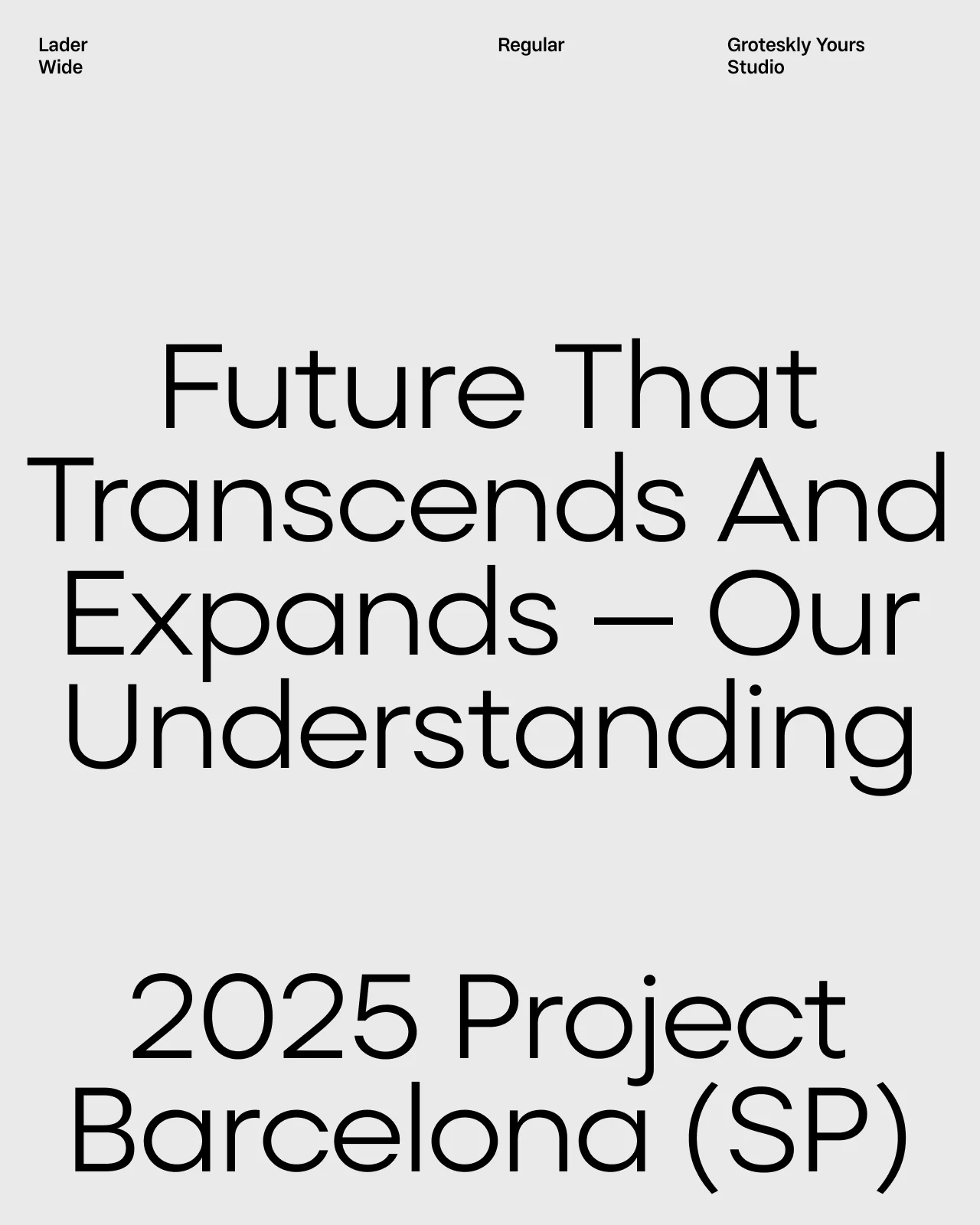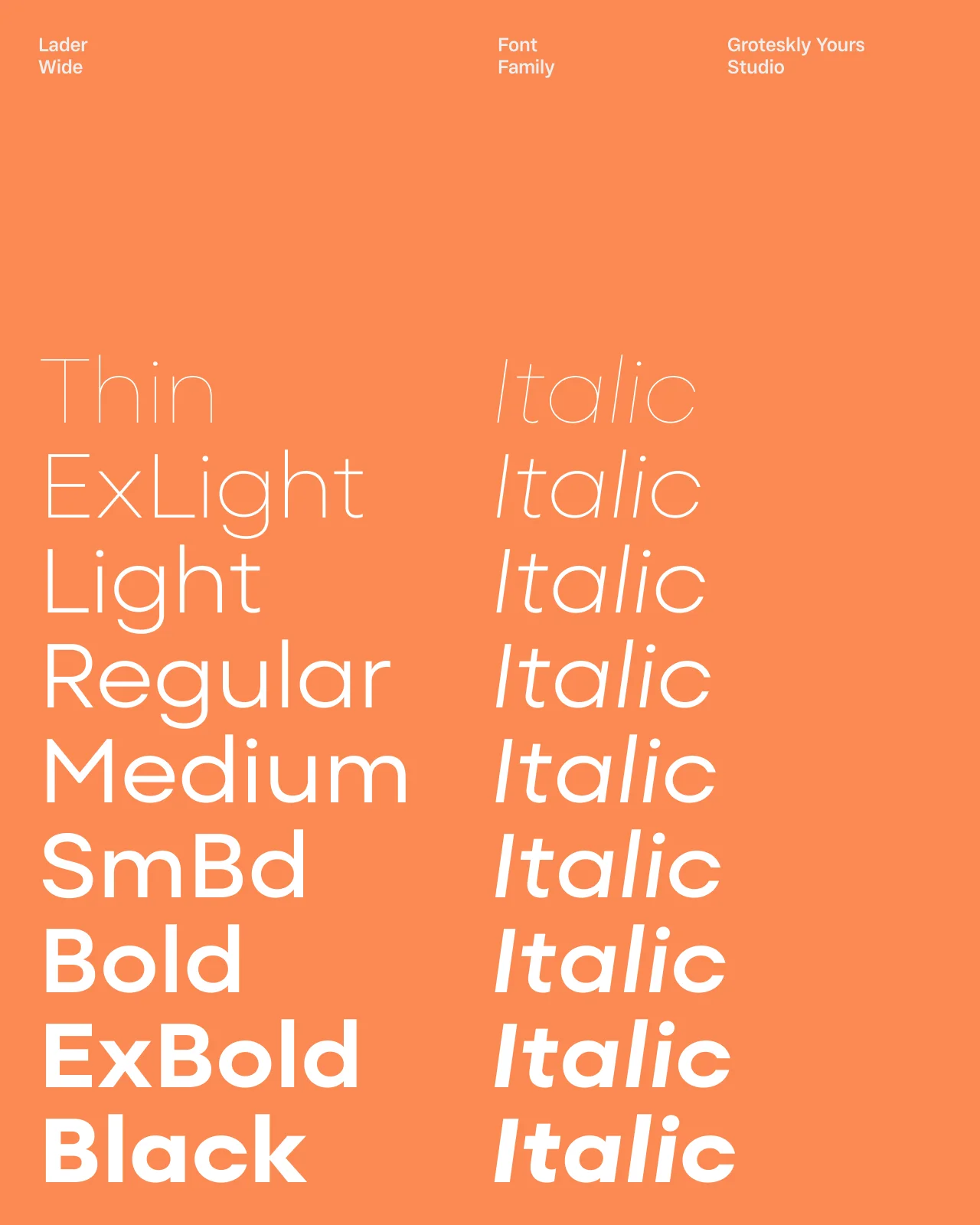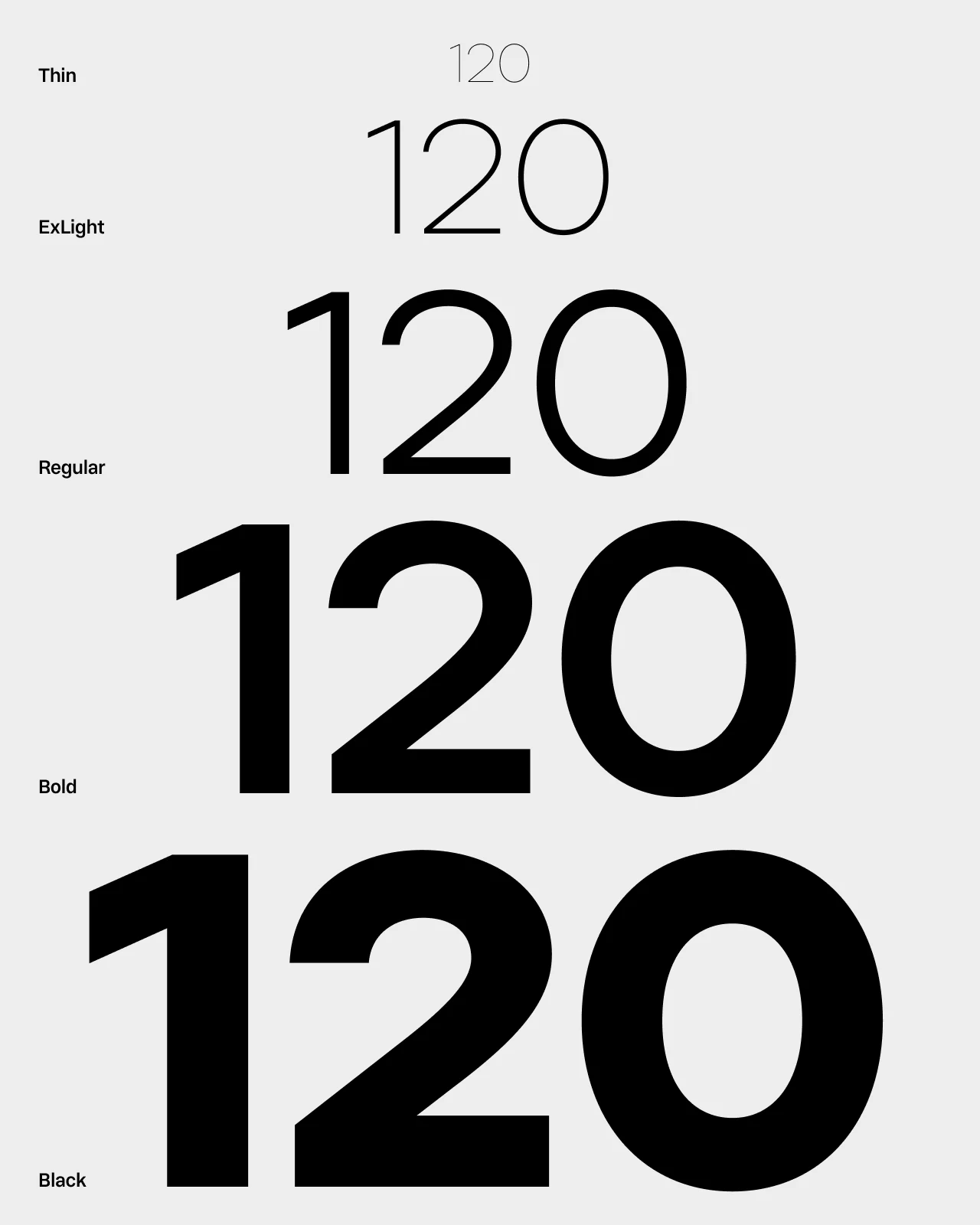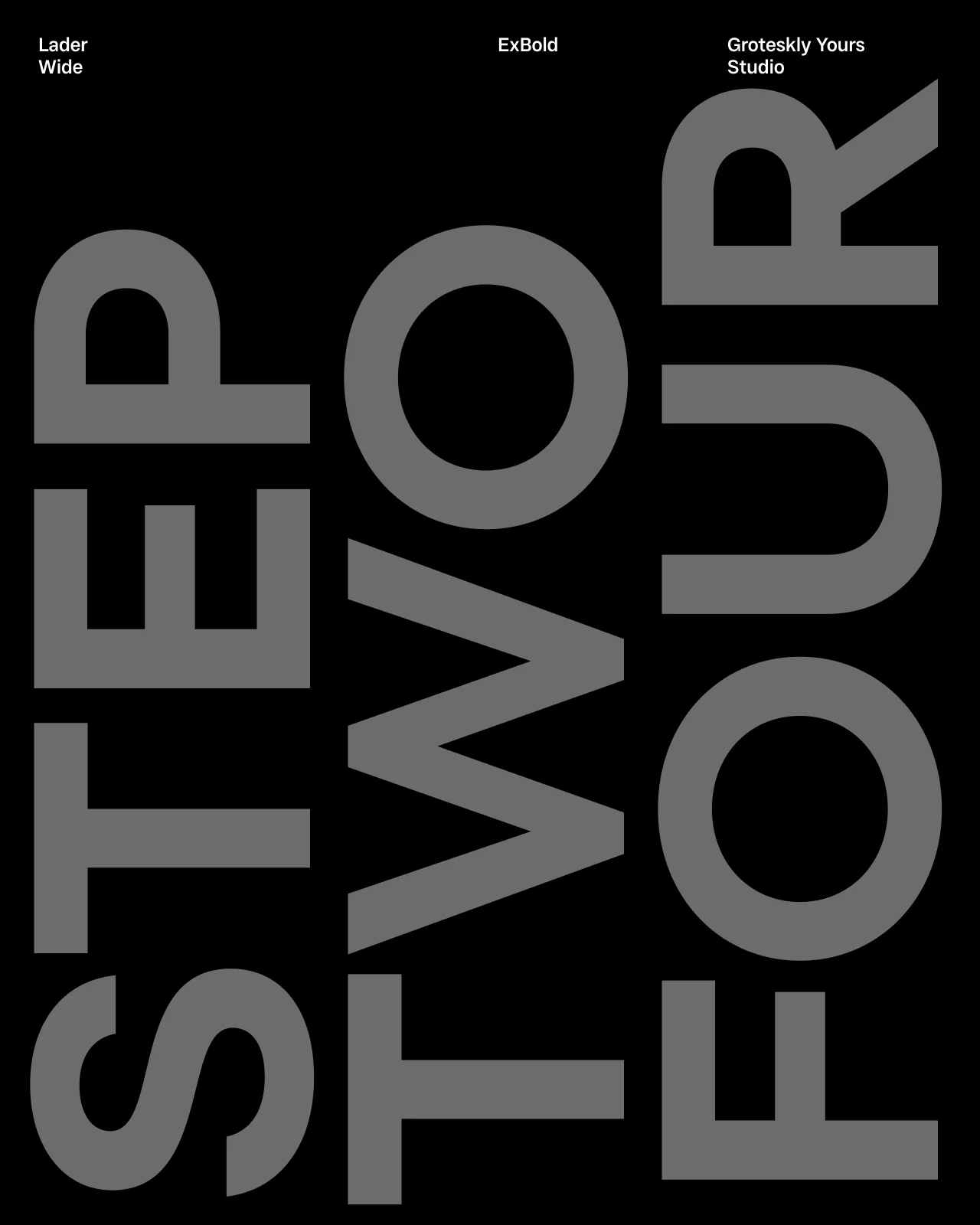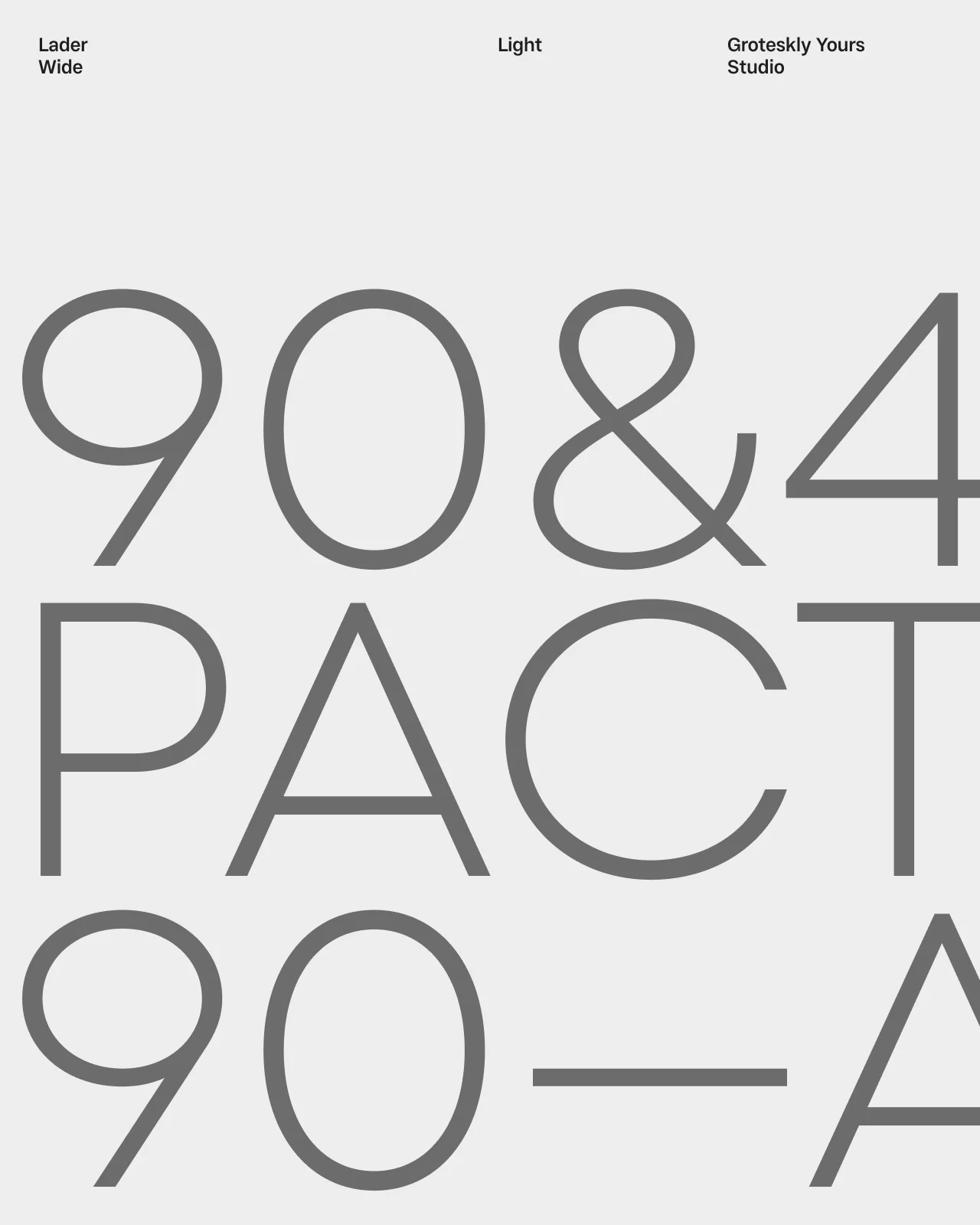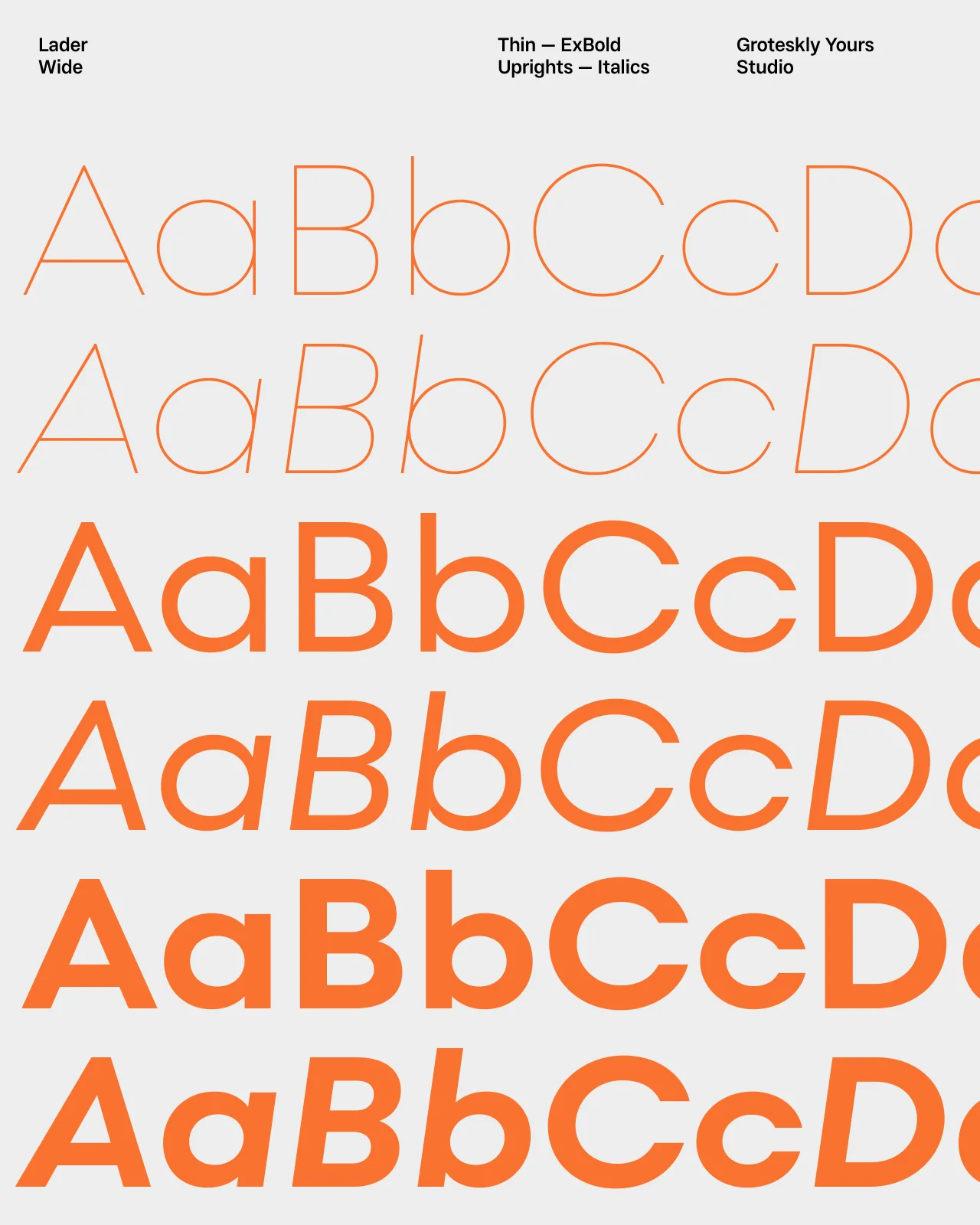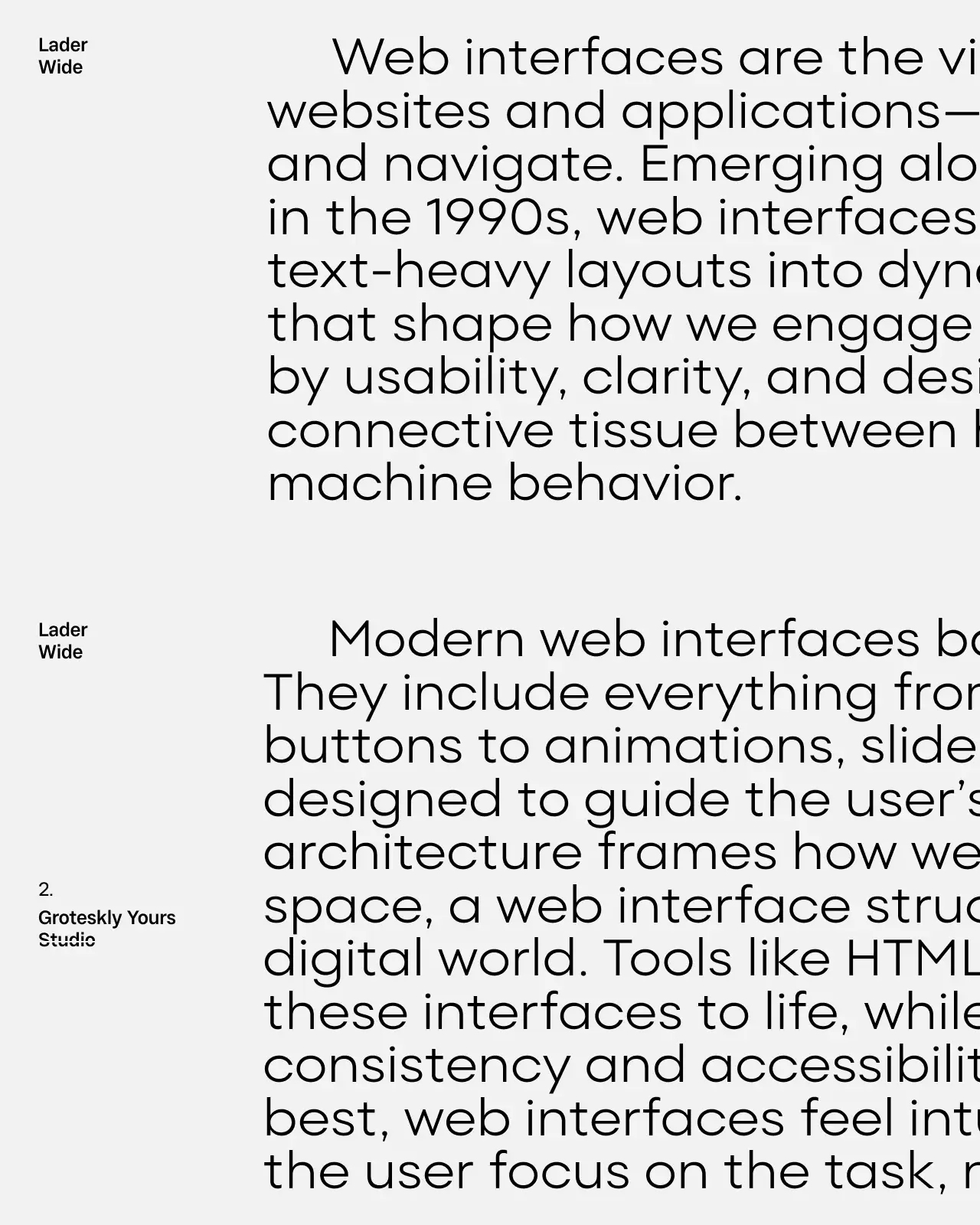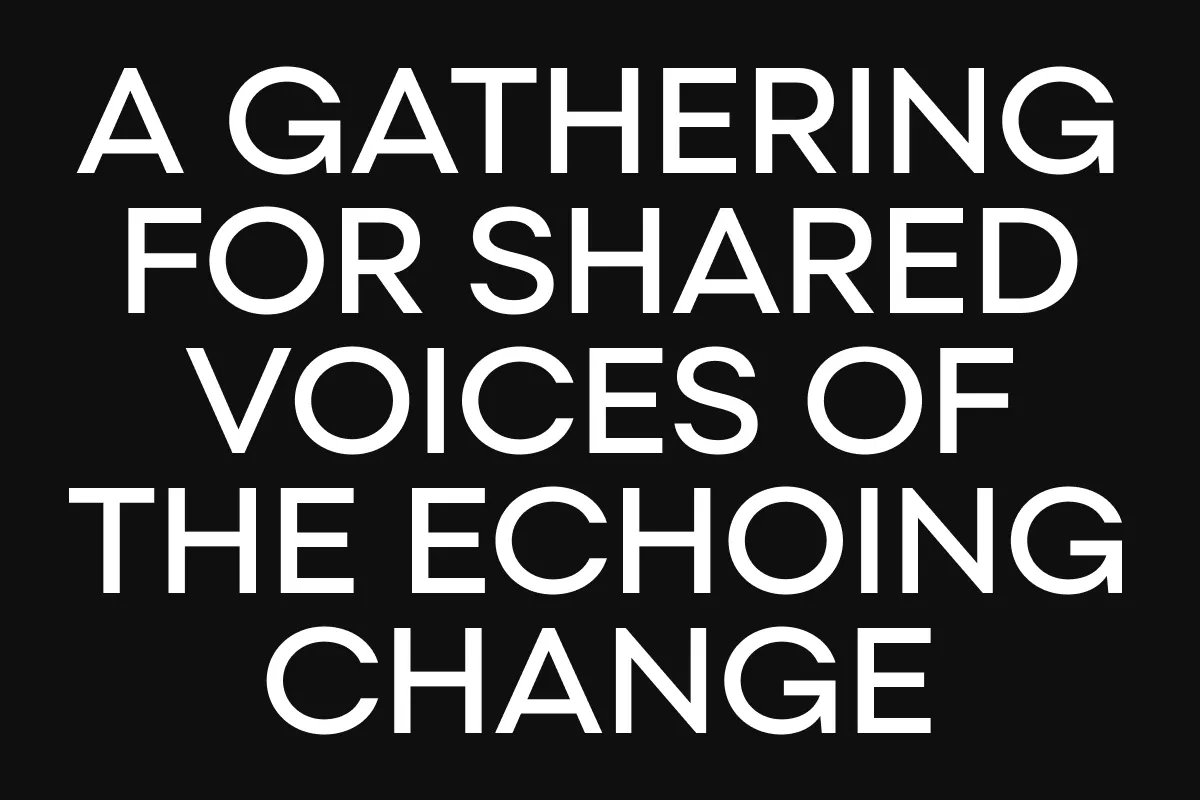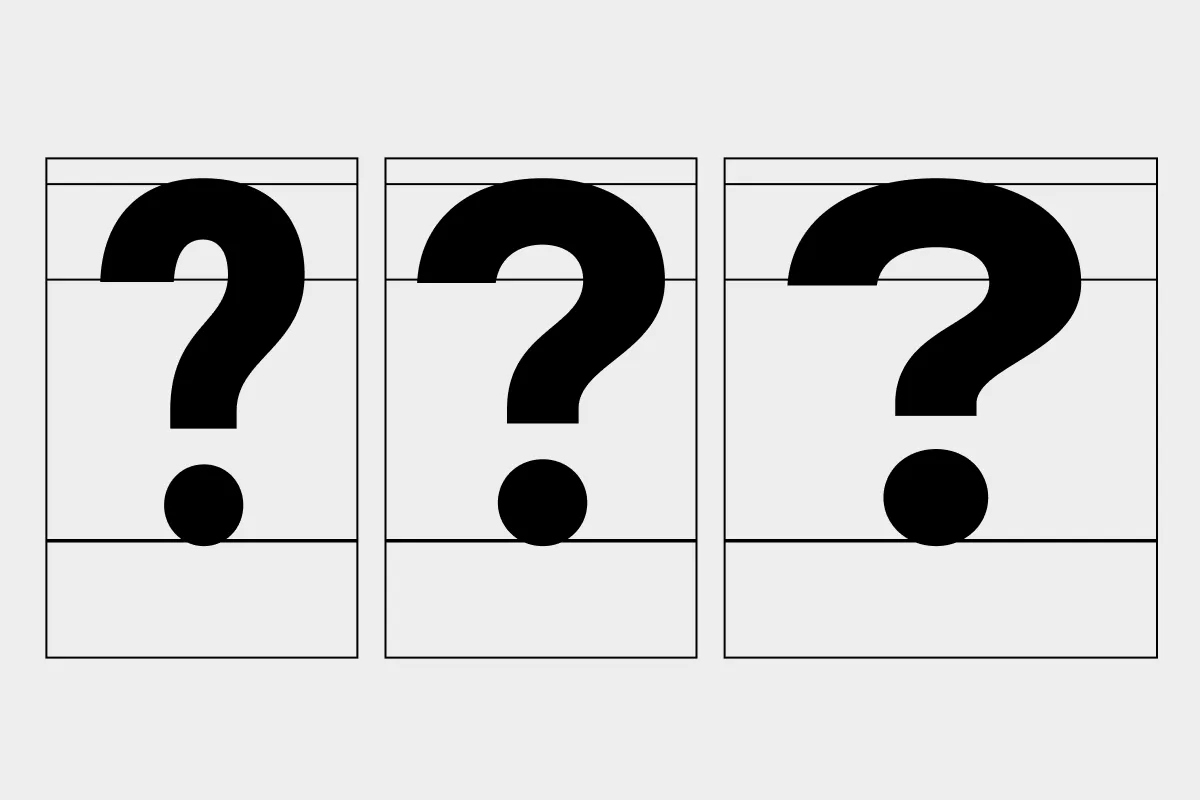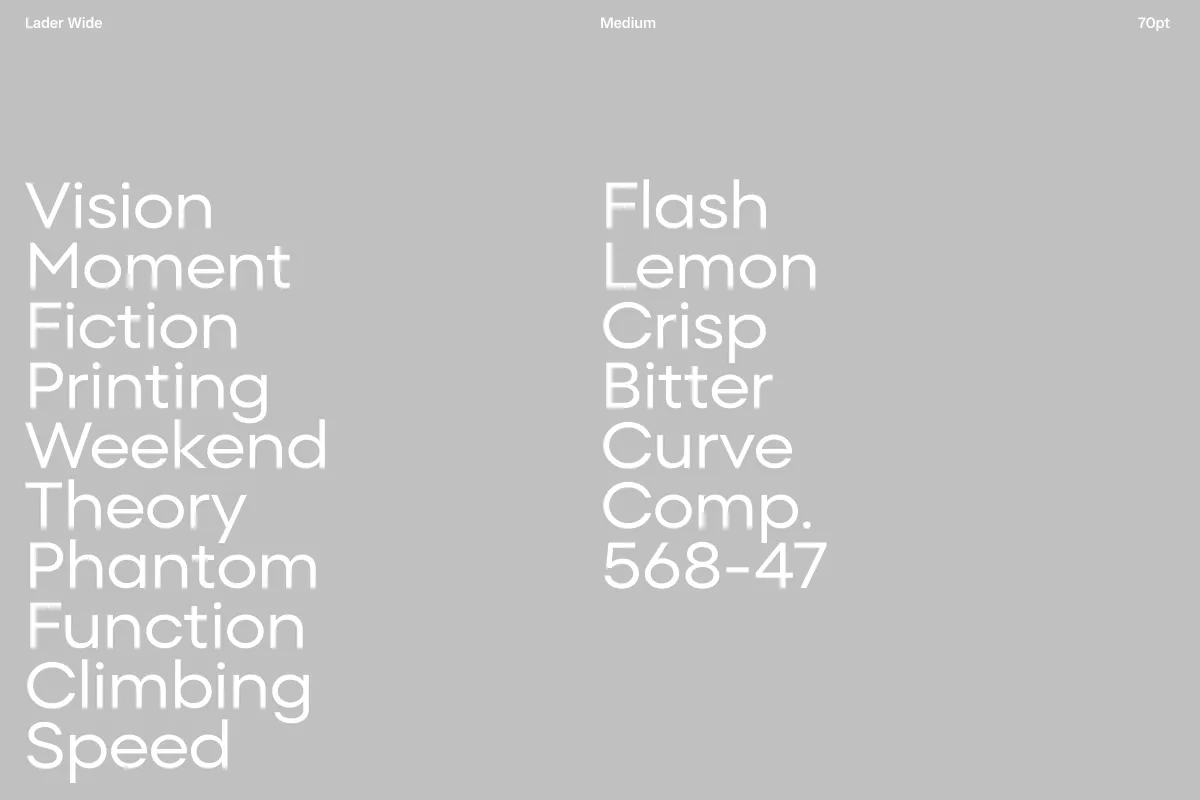
Lader Wide
Lader Wide is the second widest subfamily in the Lader family, featuring expanded proportions and looser spacing that create a confident, display-oriented look. With 18 styles ranging from Thin to Black and matching italics, it strikes a balance between generous width and everyday usability; it's bold and distinctive without feeling exaggerated or cumbersome. Lader Wide combines Lader's classic geometric precision with subtle humanist touches, adding warmth and personality to its clean, structured shapes. This makes it versatile enough to serve both expressive headlines and readable text in digital or print environments.
Designed to work seamlessly with other fonts in the Lader family or as a standalone typeface, Lader Wide brings a fresh, open feel to any project. Its generous letterforms and airy spacing make it particularly effective for branding, editorial design, web, posters, and large-format applications where strong visual impact and legibility are essential.
Equipped with a full set of OpenType features—including stylistic alternates, ligatures, fractions, subscripts, and superscripts—Lader Wide provides the typographic flexibility needed for creative and functional design alike. It supports most over 150 languages, including most Latin-based languages and Vietnamese, while maintaining its clear and neutral character.
Designers
Eugene Tantsurin, Anna Remm